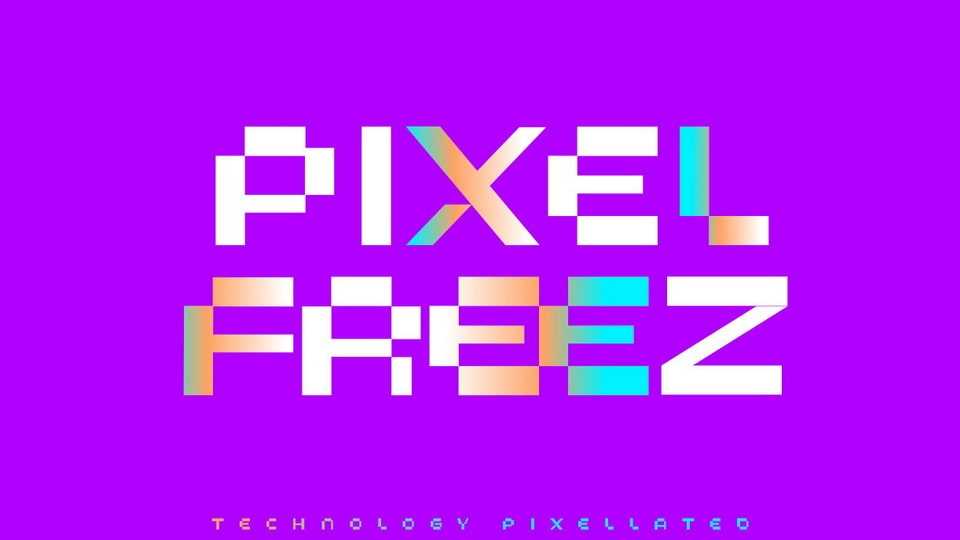
Aeogo Box Font › Fontesk – Download Grátis
Download Aeogo Box font, a pixel futuristic typeface inspired by space and technology. Its pixelated form, though simple, held a heart of pure digital courage.
Designer: ffeeaarr design